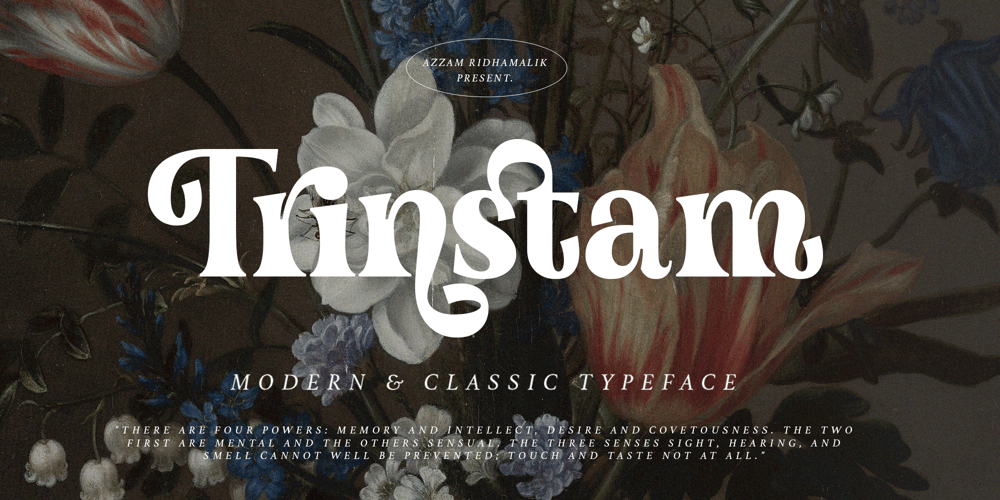
Trinstam Font Family was designed by Azzam Ridhamalik and published by Azzam Ridhamalik. Trinstam contains 1 styles and family package options. Trinstam is a fancy modern and classic serif typeface with a clear and bold look. It’s a very versatile font that works great in large and small sizes. Perfect for editorial projects, Logo design, Clothing Branding, product packaging, magazine headers, or simply as a stylish text overlay to any background image.This font is PUA encoded and has more than 120 unique alternative glyphs and ligatures that will give your project an unique classic look.FEATURES : Uppercase Lowercase Number Punctuation Multilingual PUA Encode Opentype